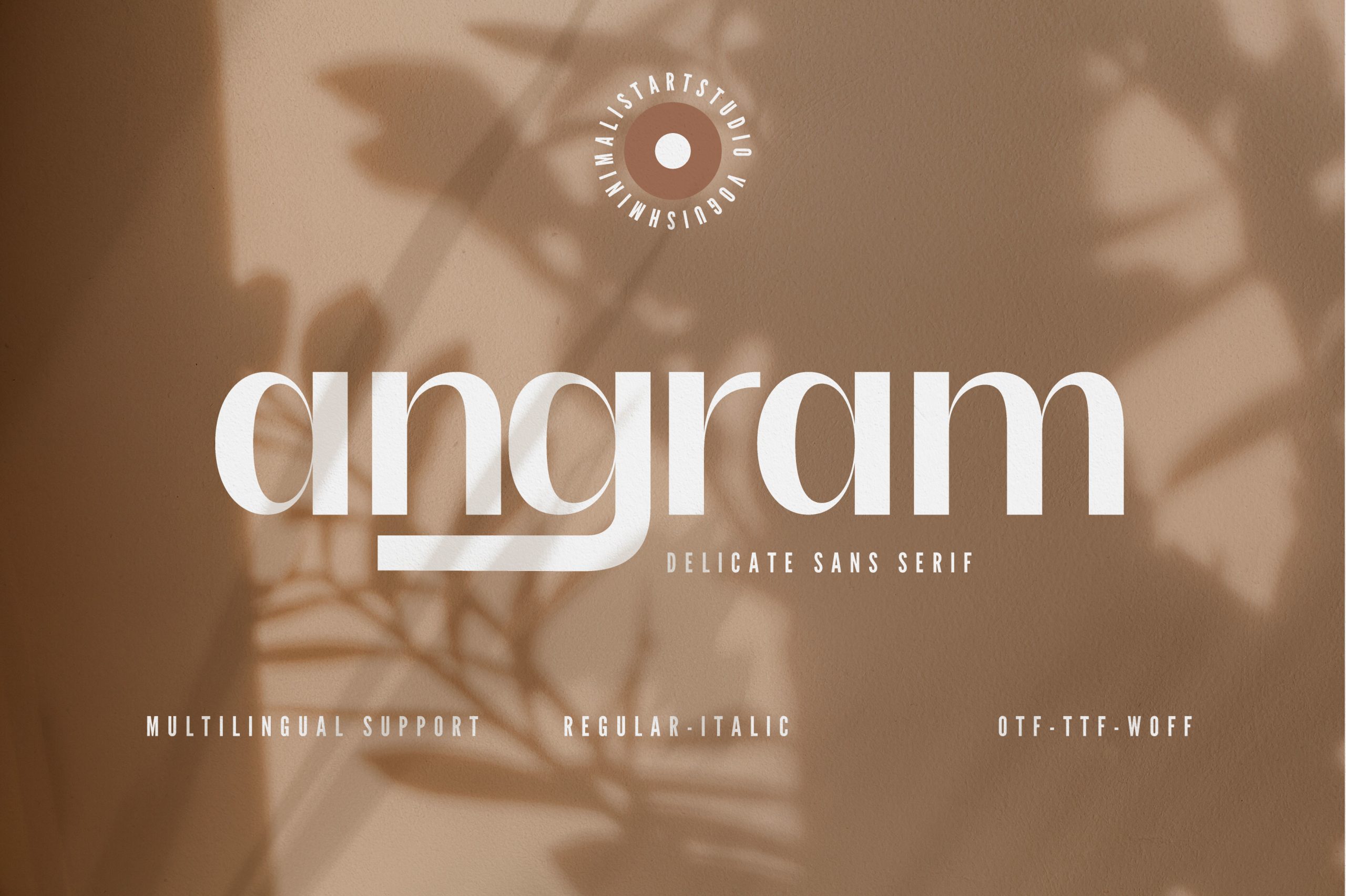
Angram Font
Angram is a refined, chic, and stylish sans serif typeface that goes well with elegant design projects such as packaging design in general, cosmetics and perfume, clothing, fashion, jewelry, magazine covers, and other luxury goods. this sure value added to any creation.
Angram Sans Serif Font